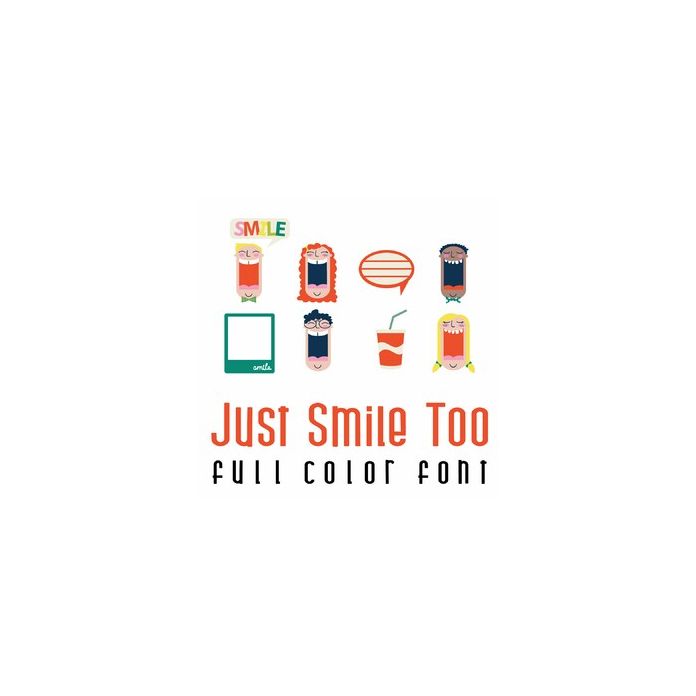
These full color font features fun faces have large open mouths perfect for adding expressions and giving to someone you care. Also includes fun journaling elements and frames. Use it to create fun cards and more!